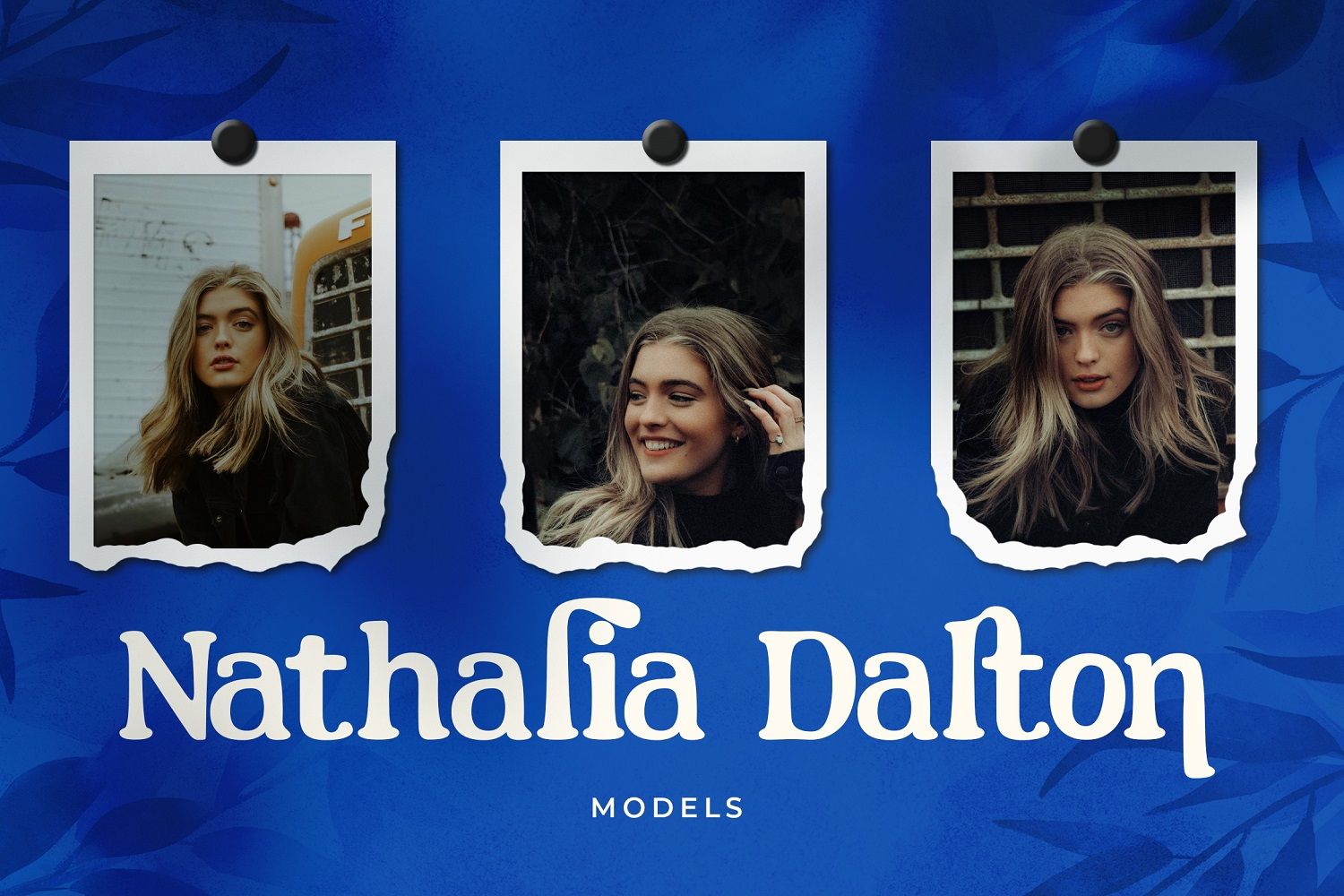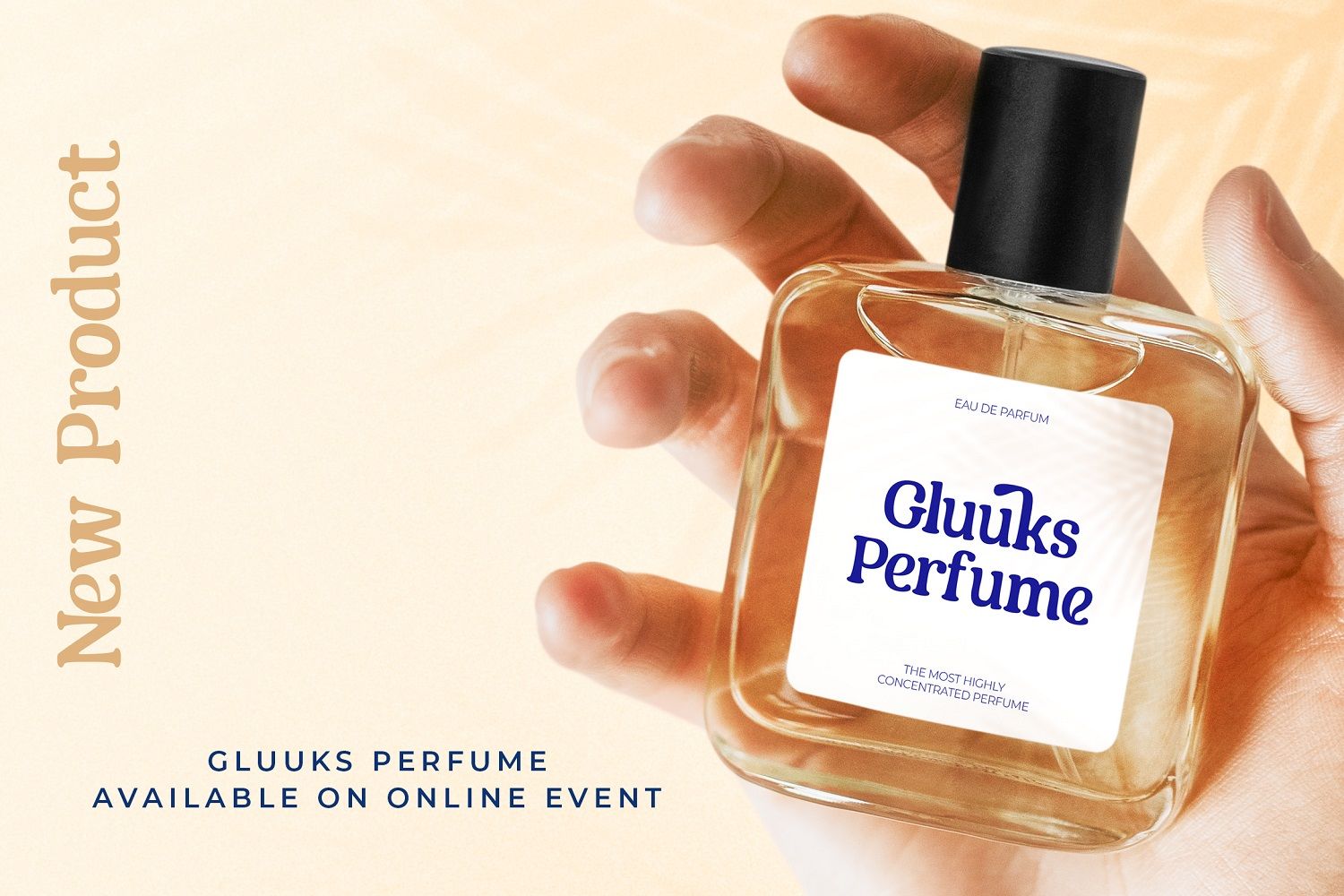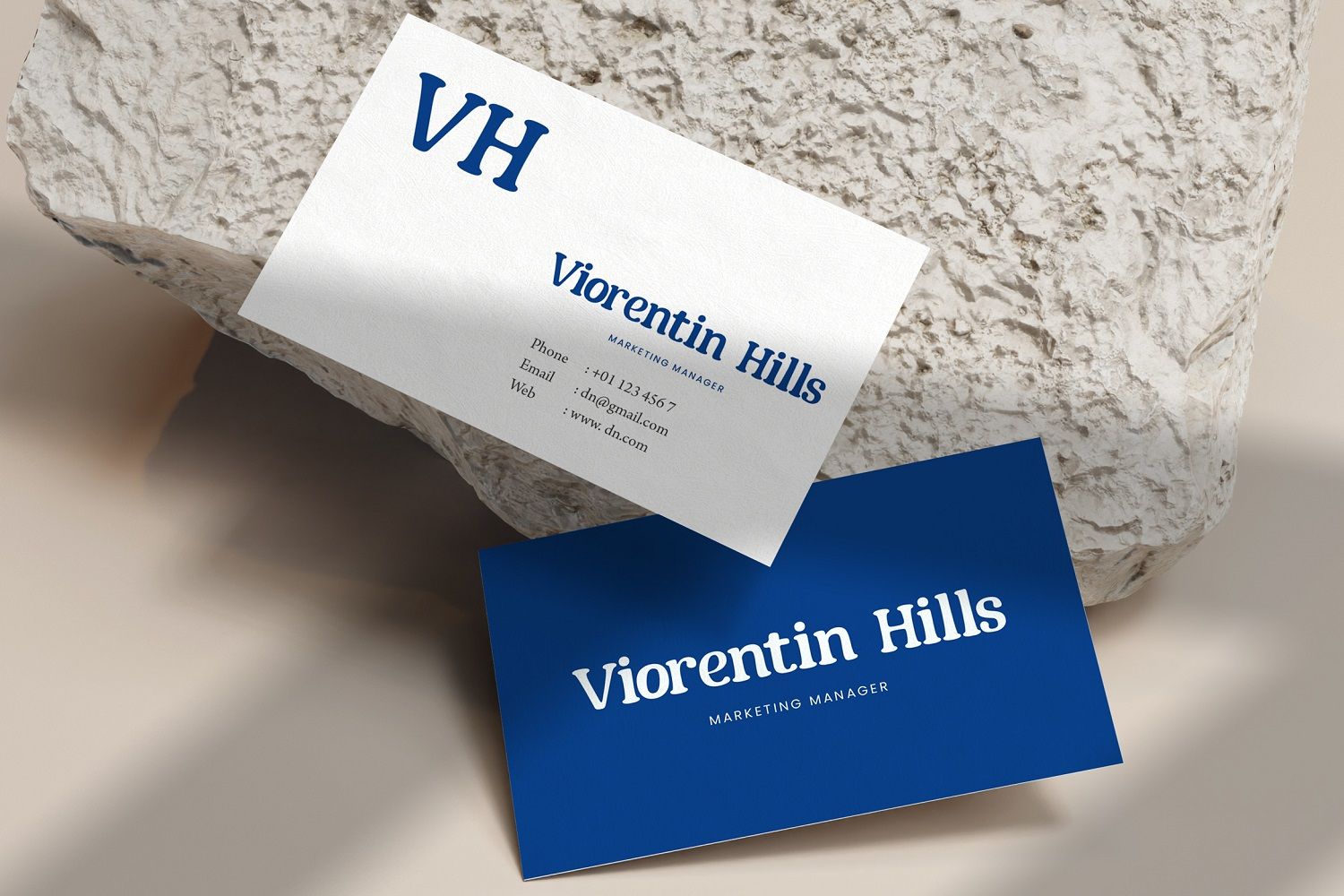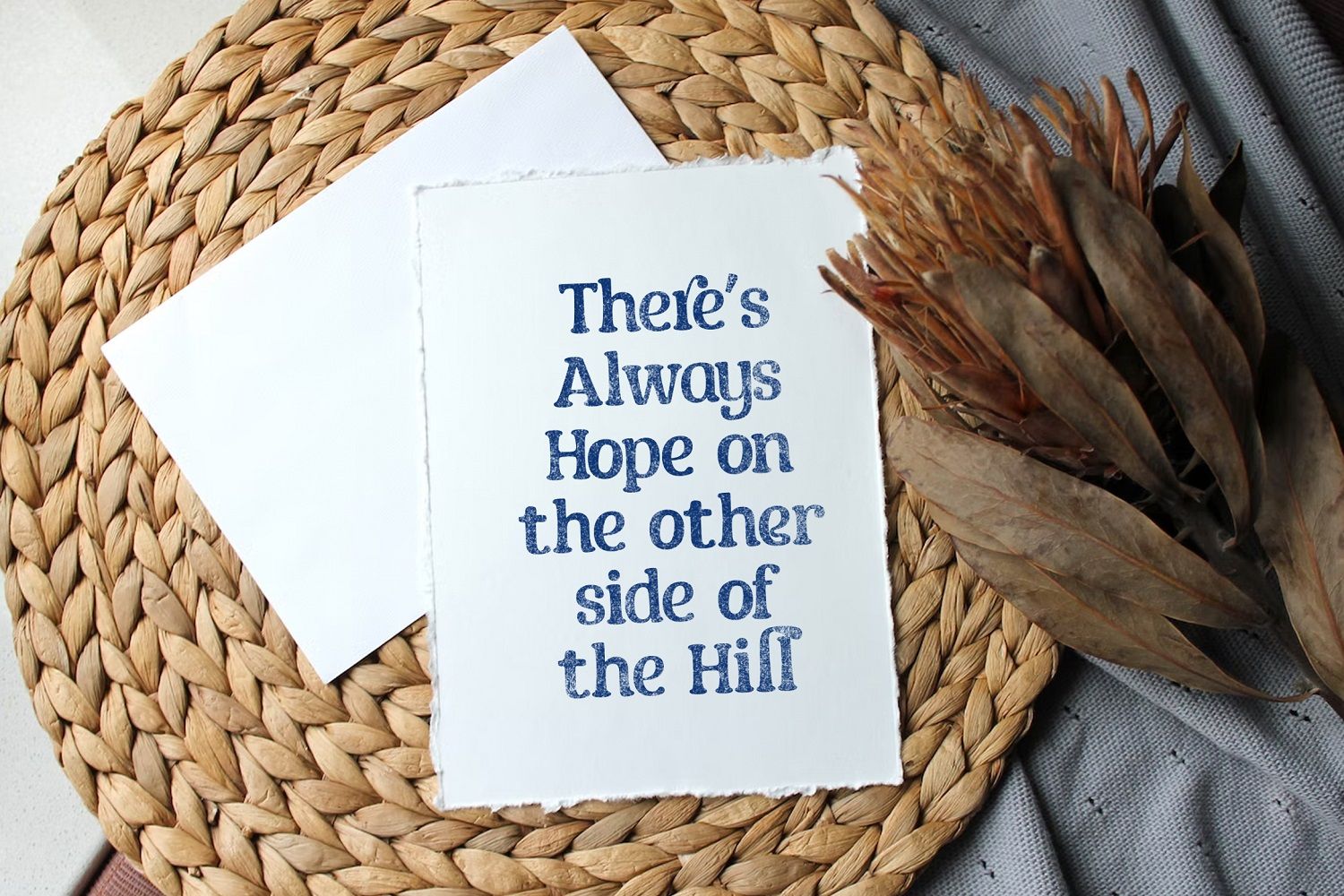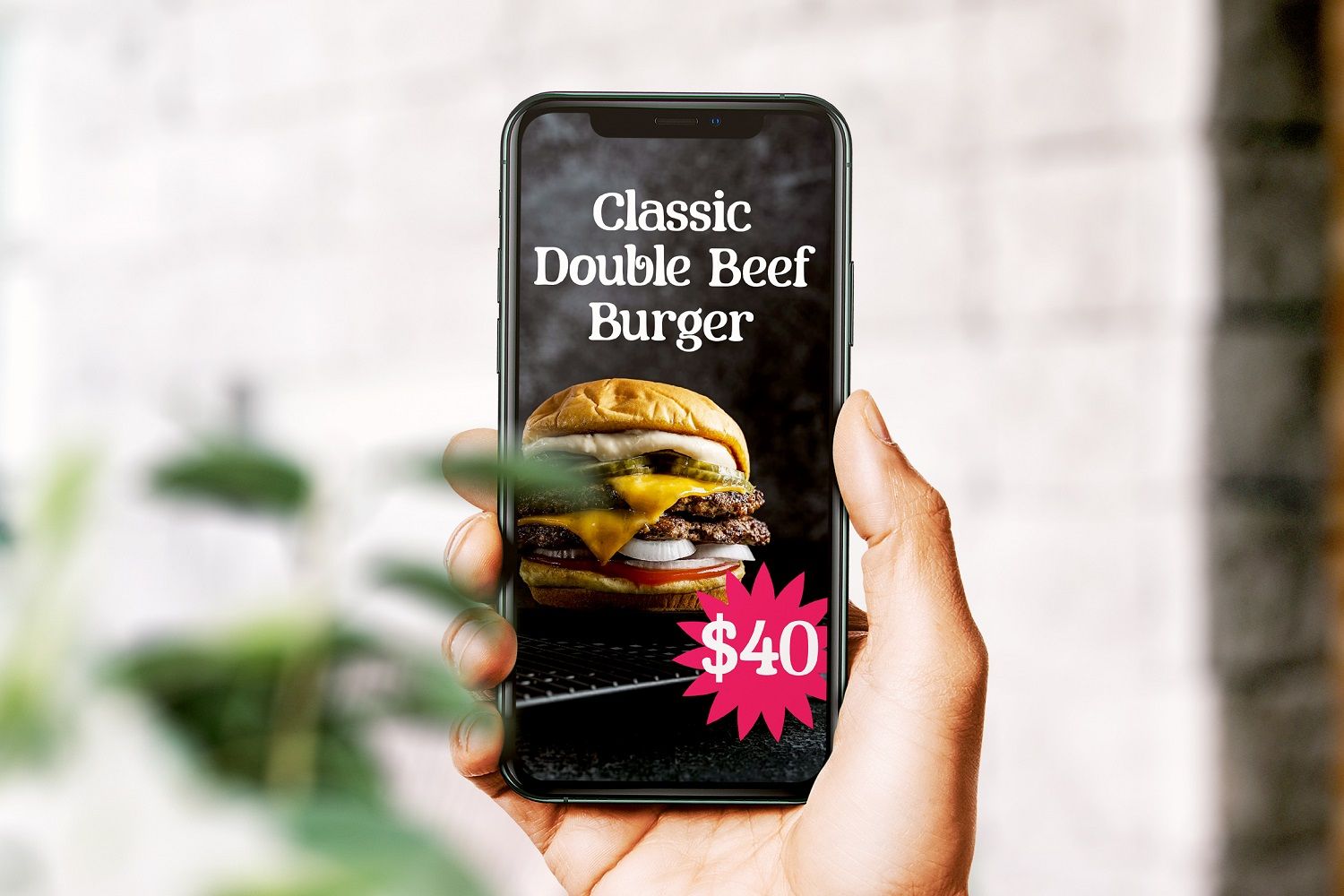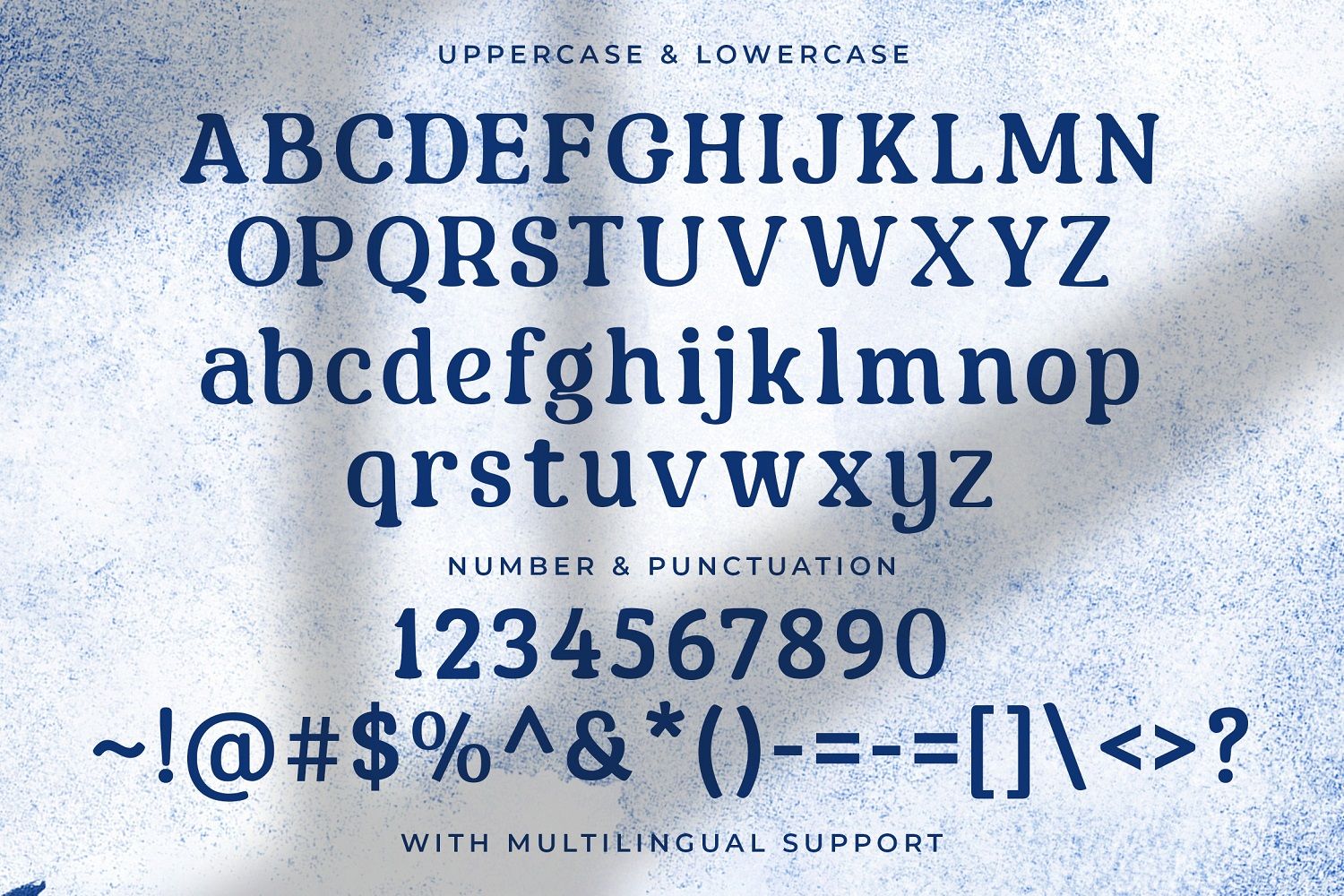
Free Minguwest Decorative Serif Font has a cheerful, slightly retro personality that immediately brightens up any layout. Its rounded serifs, soft curves, and friendly proportions give each letter a bouncy rhythm, while the alternates add playful swoops that are perfect for standout words and expressive logotypes. Free Minguwest Decorative Serif Font stays readable thanks to its clear structure and generous spacing, so it works well for headlines, short quotes, and taglines on both print and digital designs.
This font feels right at home on coffee shop or bakery branding, kids’ book covers, lifestyle blogs, and packaging for handmade or organic products. Use Free Minguwest Decorative Serif Font for poster titles, social media graphics, stickers, or YouTube thumbnails when you want a warm, welcoming voice instead of something cold and corporate. Pair it with a clean sans serif for body copy and let Free Minguwest Decorative Serif Font carry the main mood of your project with charm and personality.